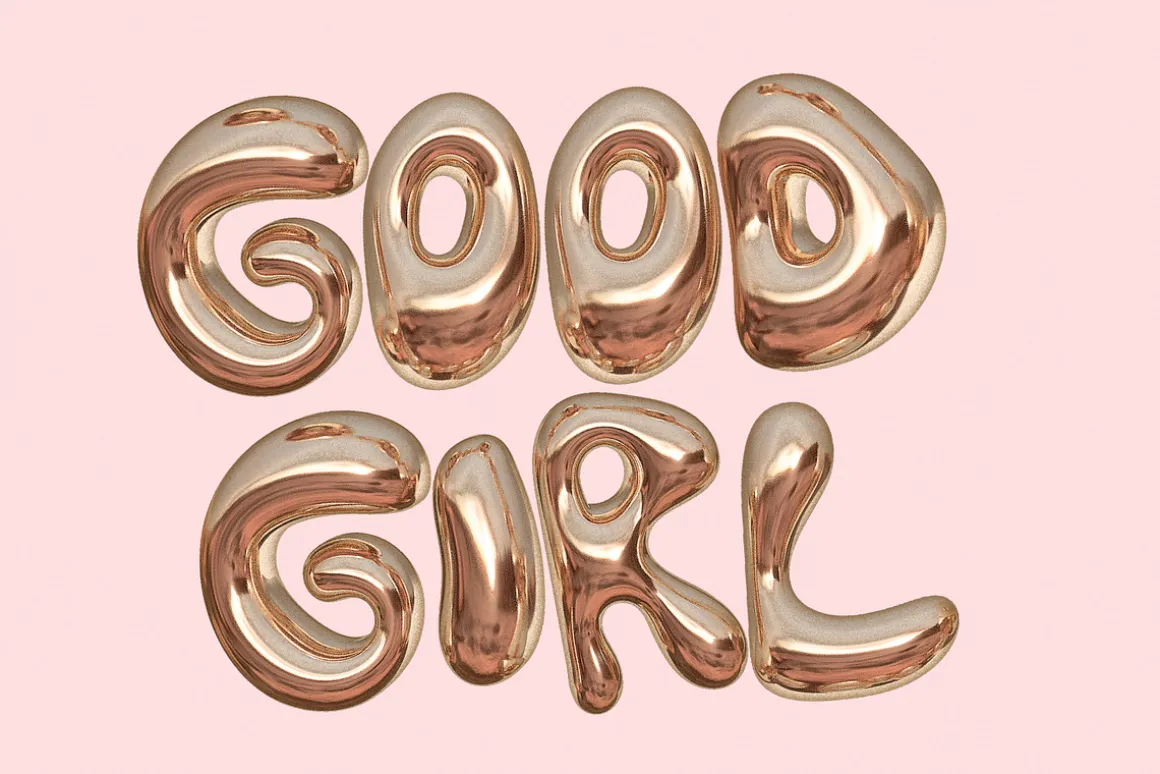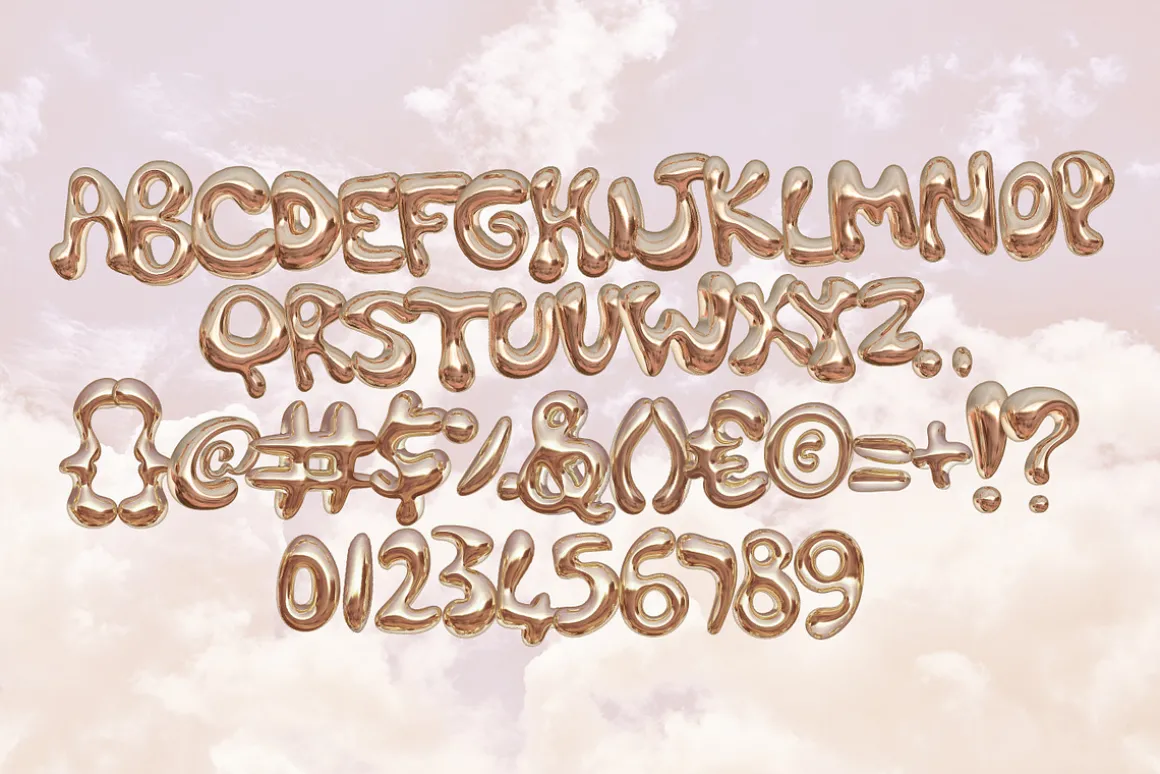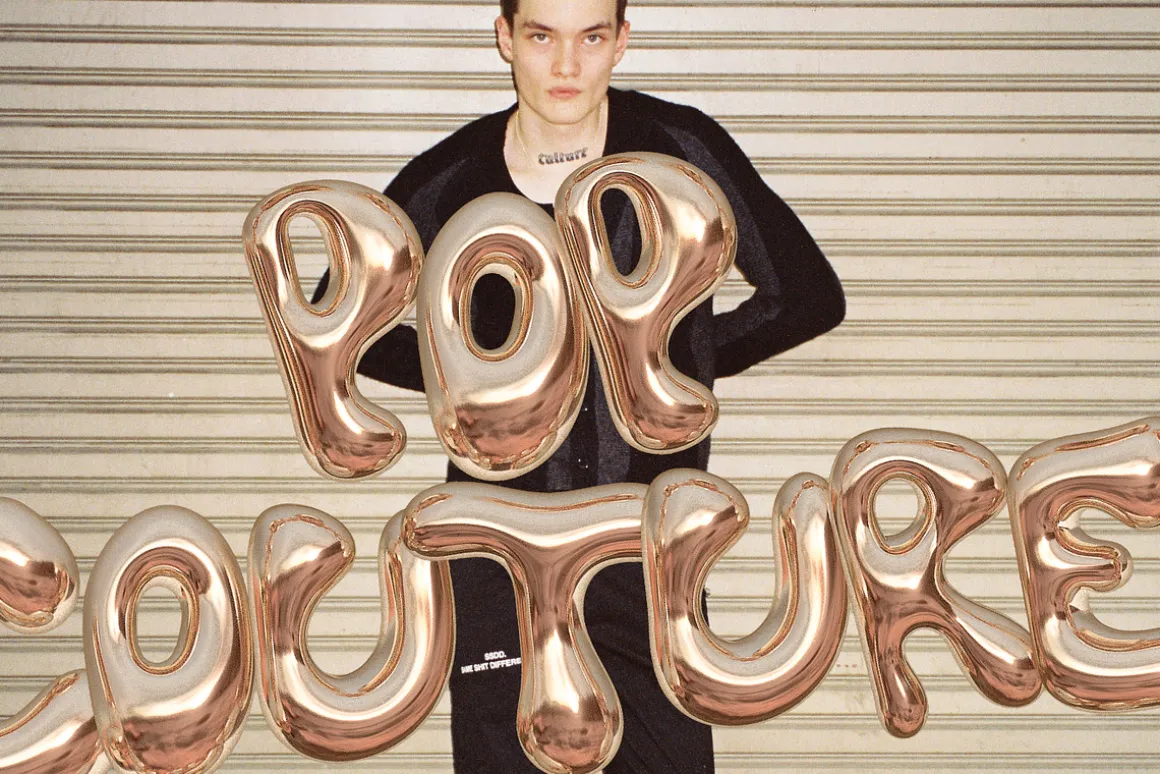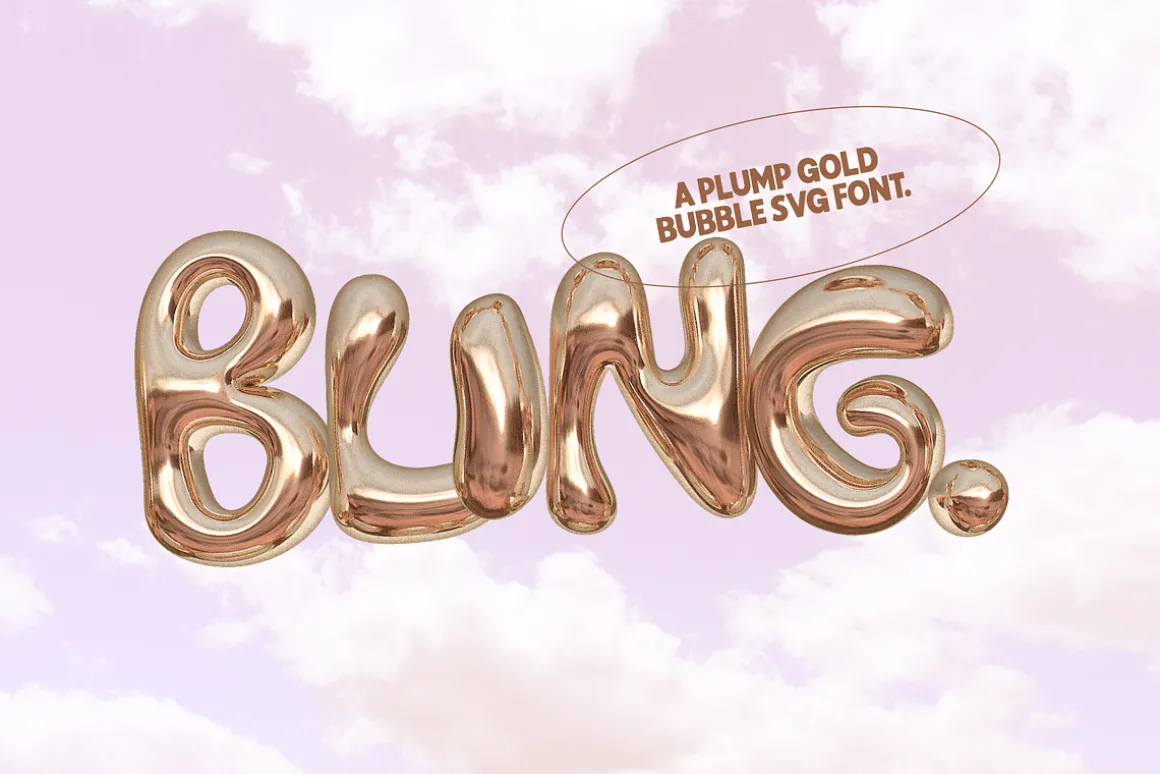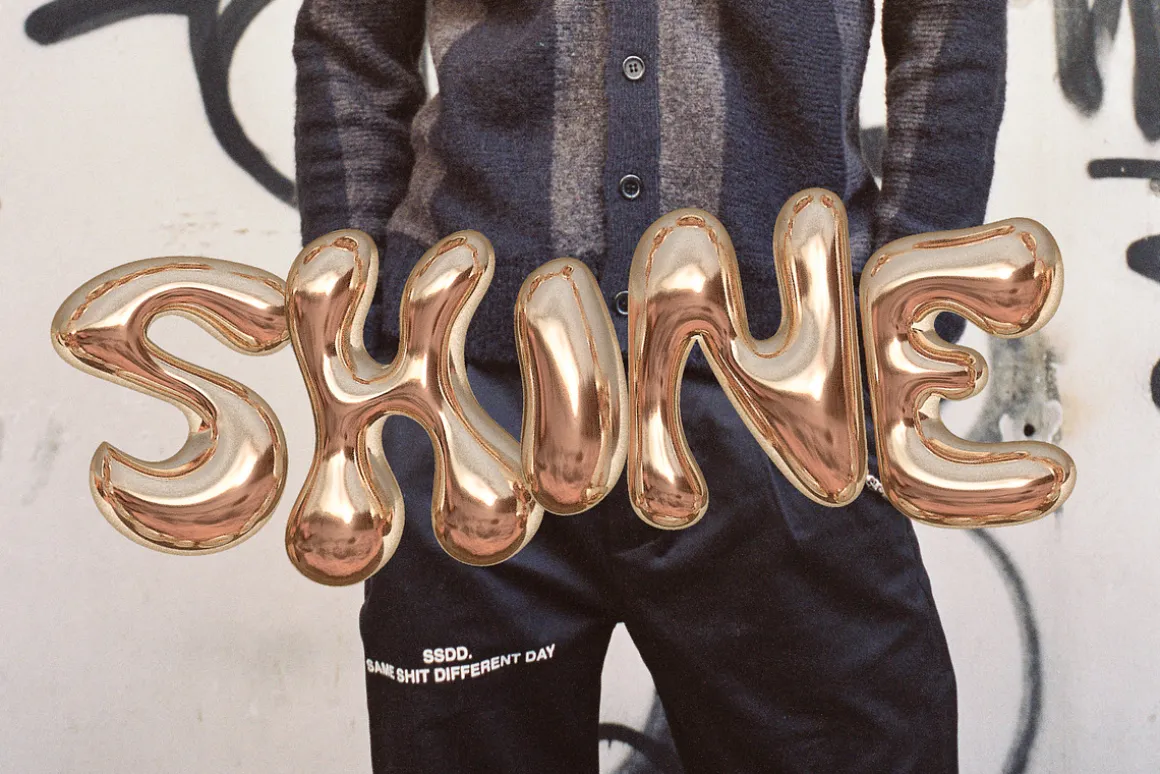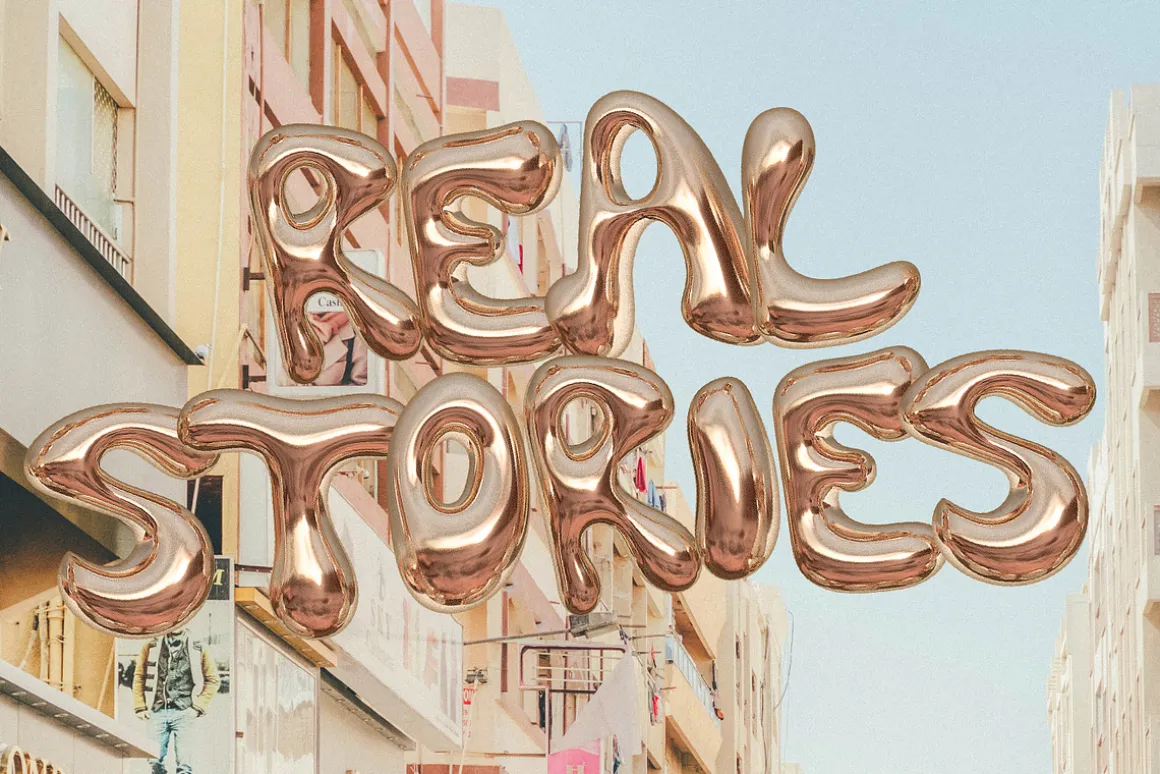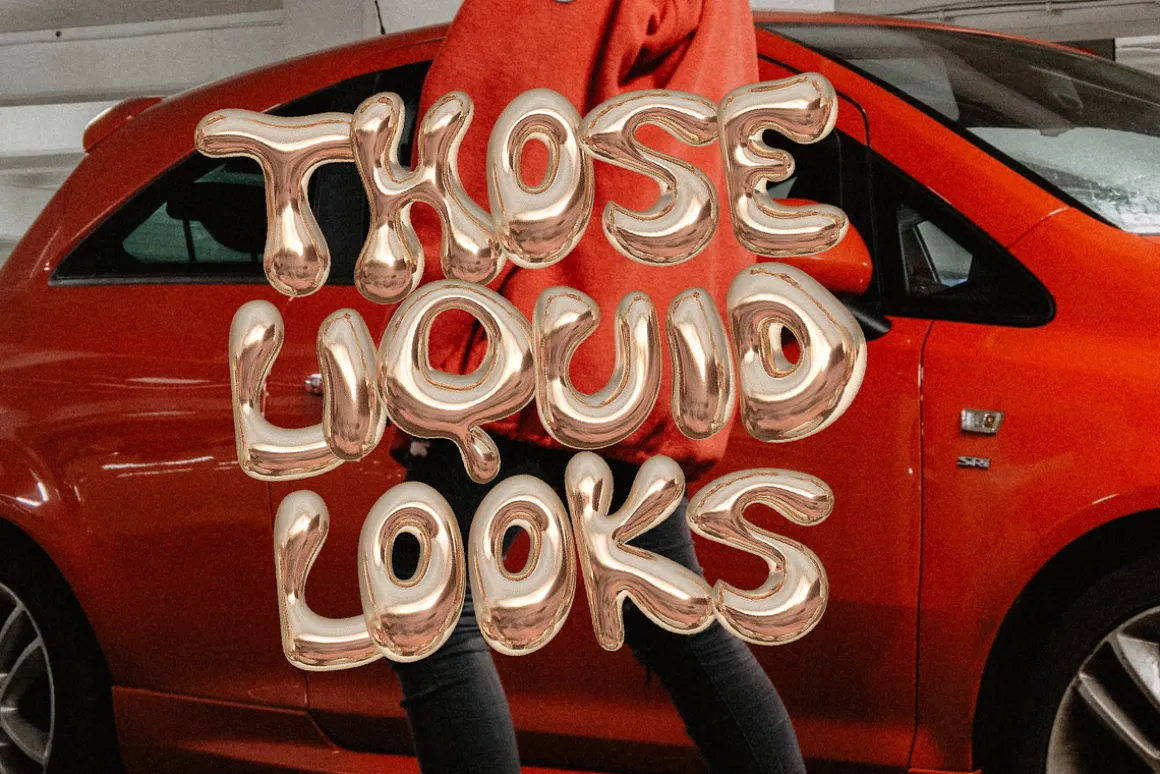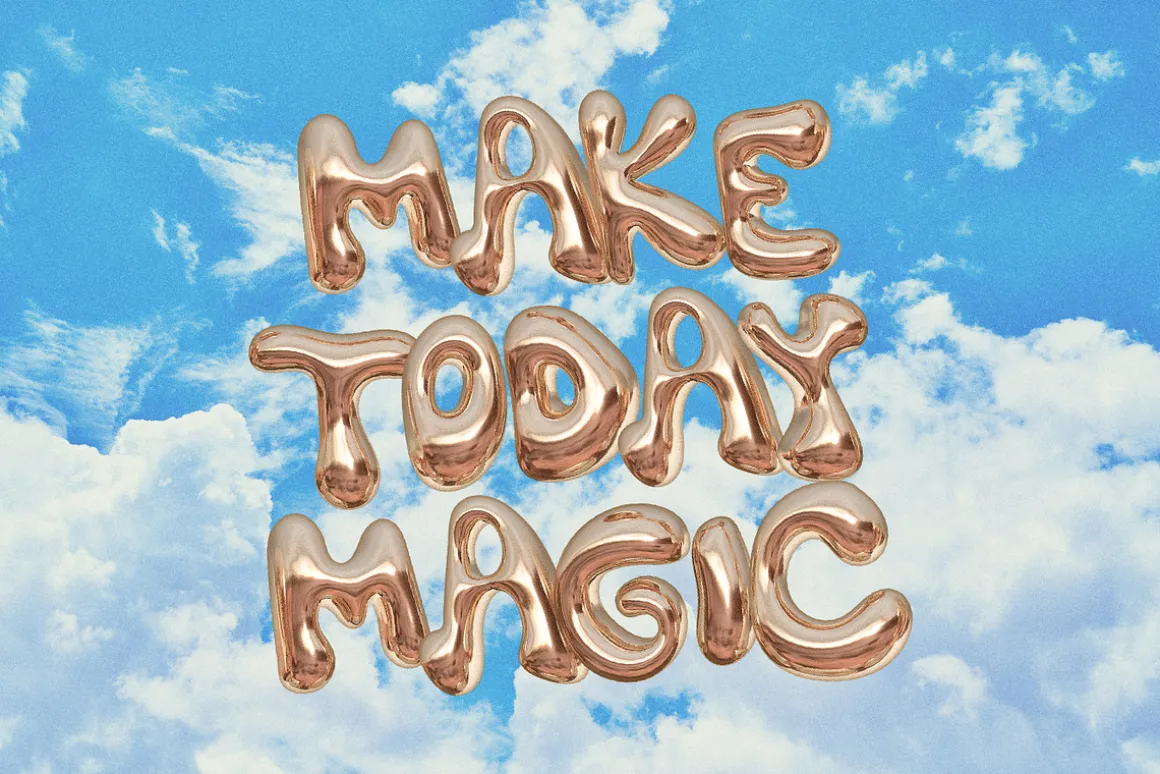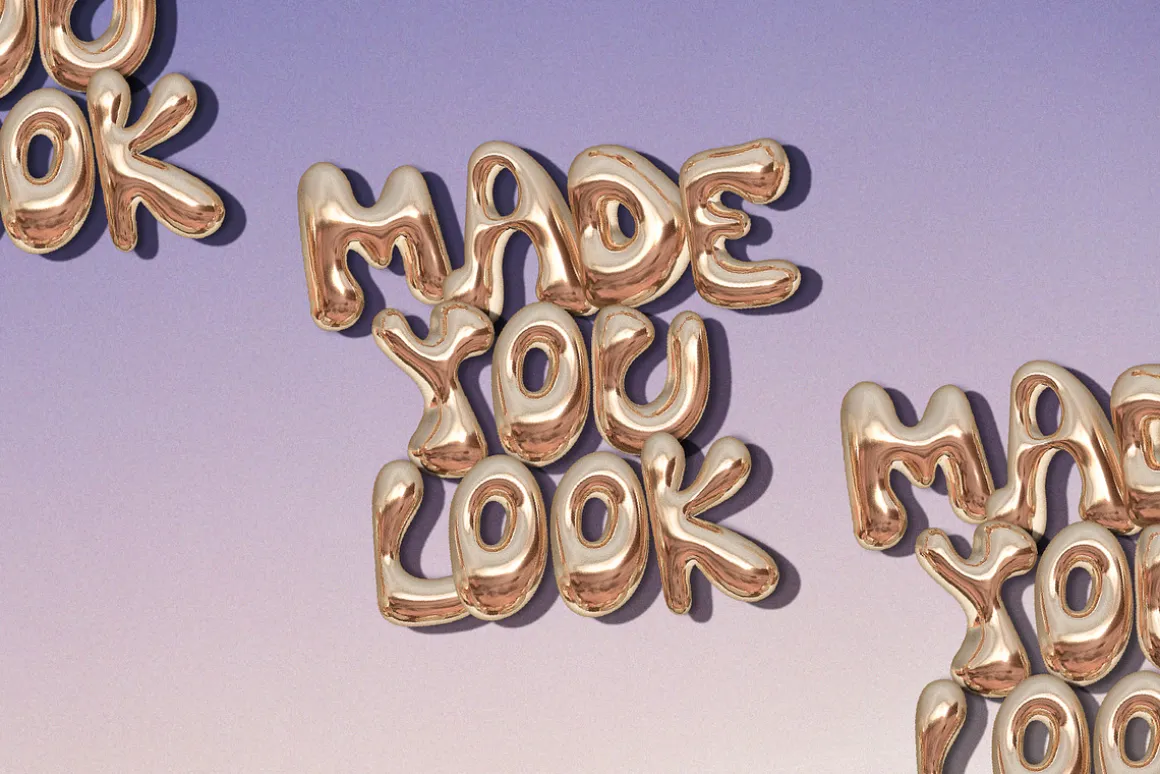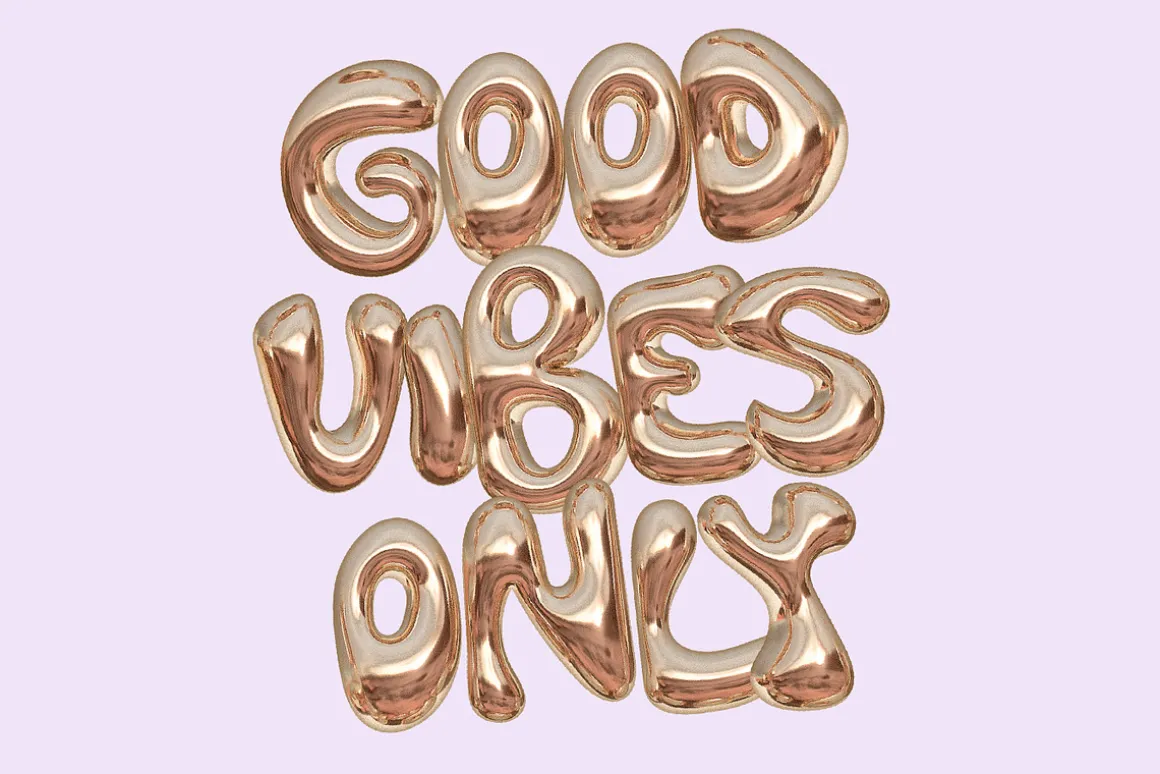
Say hello to BLING! A brazen gold 3D-style balloon SVG font ready to turn heads :)SVG fonts are rasterised bitmap-based image fonts – compatible only with Photoshop CC 2017, Illustrator CC 2018, or Procreate 4.3 (or newer).